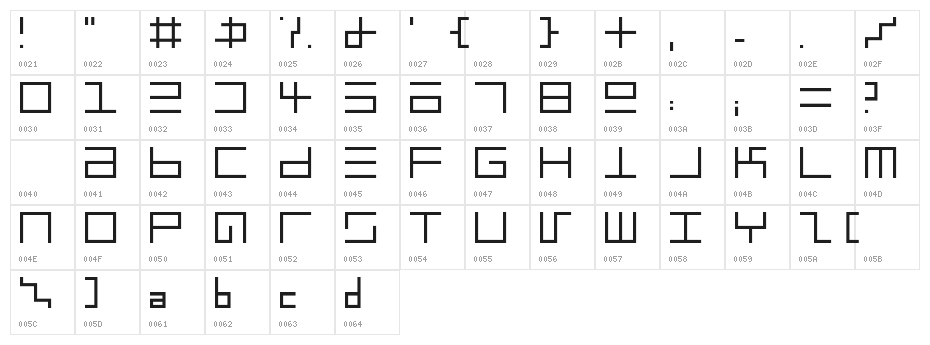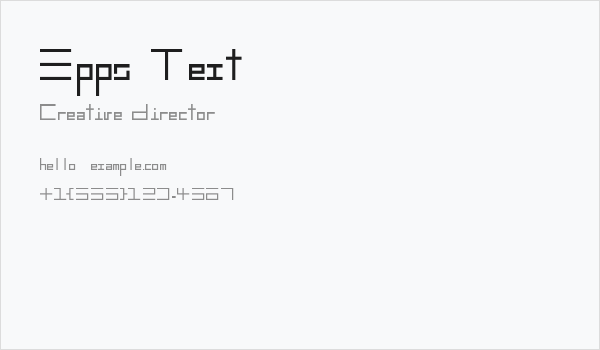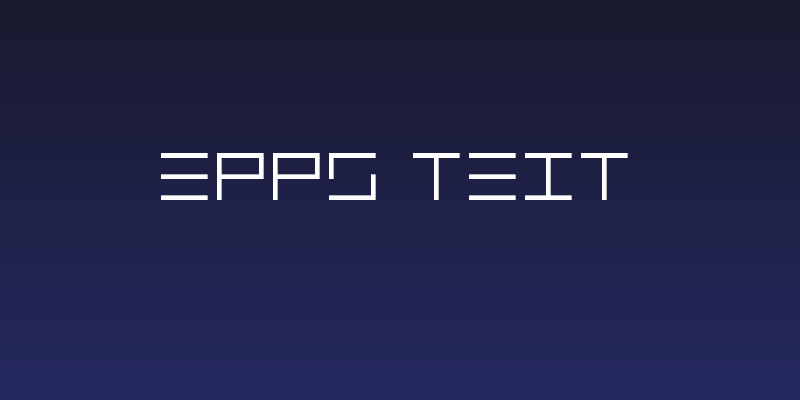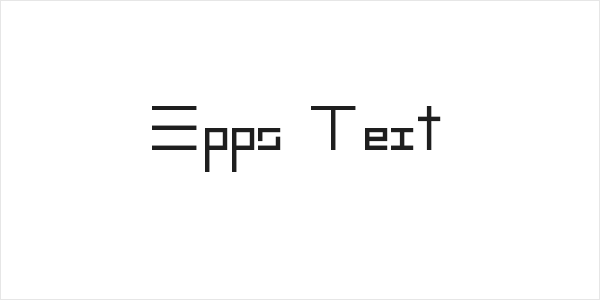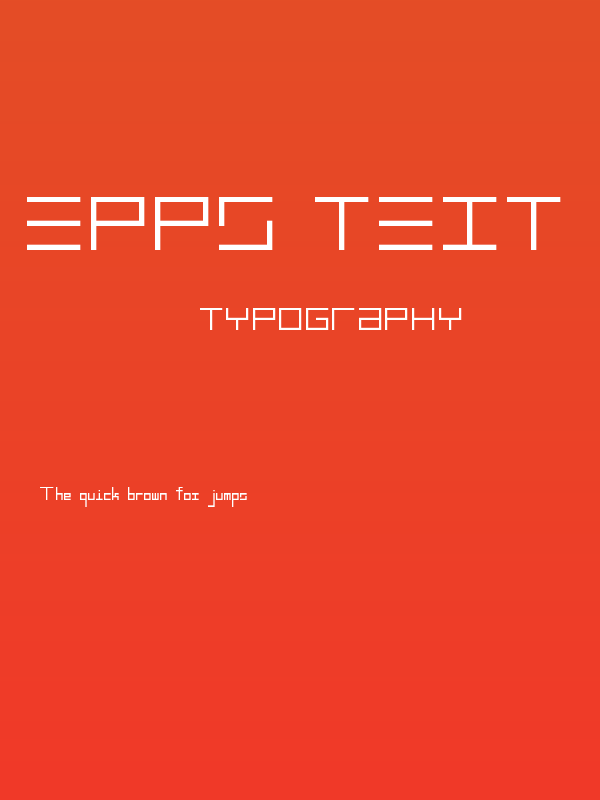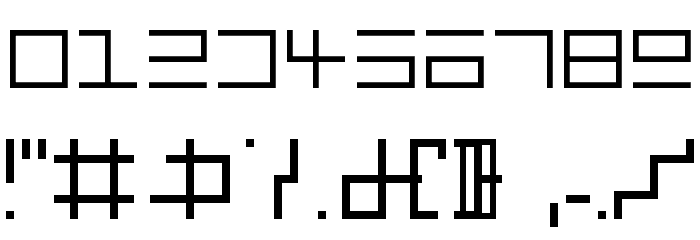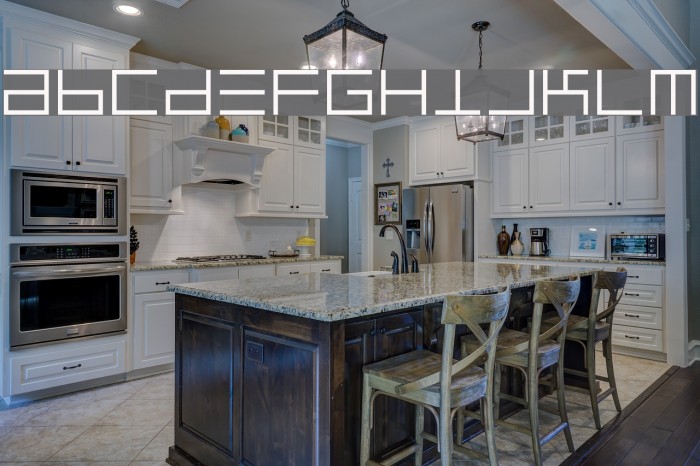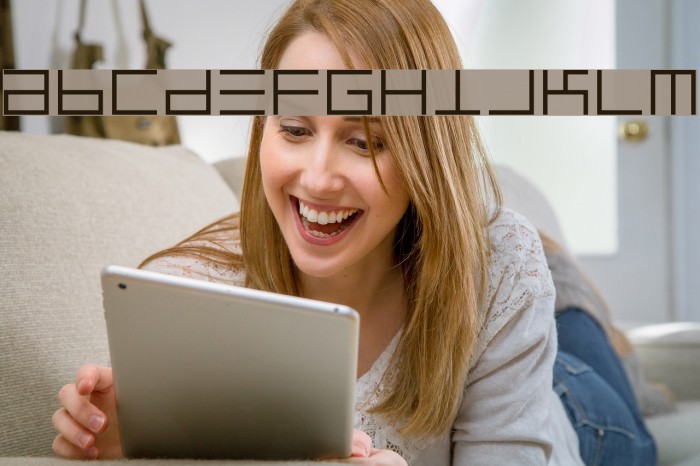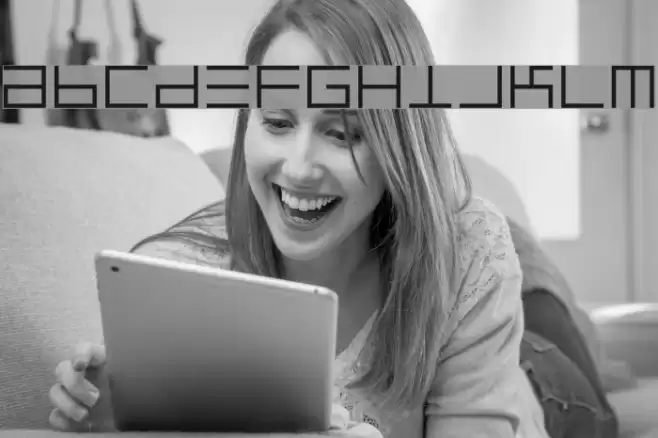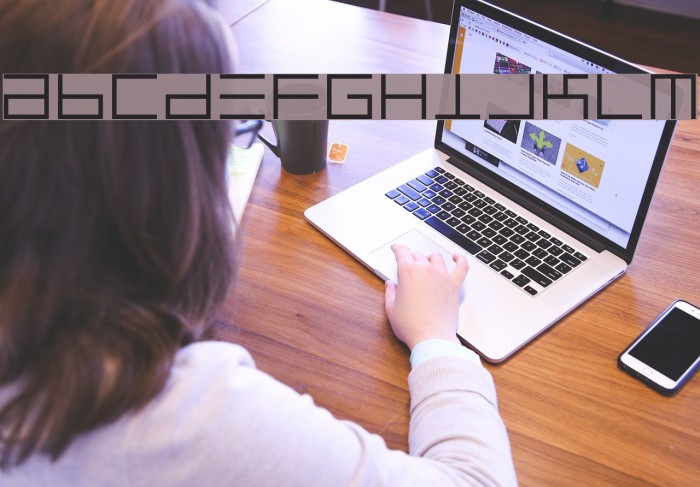
Epps Text Font
Epps Text Description
This font features a geometric and futuristic design, characterized by its blocky and angular letterforms. Each character is constructed with straight lines and right angles, giving it a mechanical and digital appearance. The uppercase and lowercase letters share a consistent height, contributing to a uniform and structured look. The numerals and special characters maintain the same design principles, ensuring a cohesive style throughout. This font's unique aesthetic makes it stand out, with its bold and distinctive shapes that are both modern and retro in feel. The overall design is minimalistic, yet it captures attention with its unconventional and tech-inspired forms.
| Use Case | Logos, Headlines, Posters |
| Proposed Projects | Ideal for tech-related branding, video game interfaces, sci-fi posters, and digital art projects. |